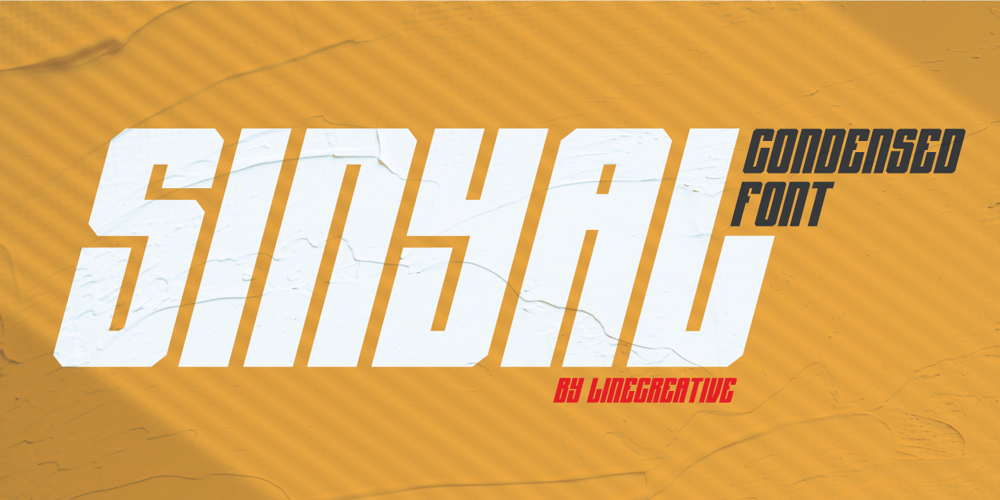
Sinyal Font Family was designed by Ari Juanda and published by Linecreative. Sinyal contains 1 styles and family package options. Sinyal is an oblique style condensed font, and in a very different style from the others. Its weight excels in posters, social media, headlines, magazine titles, clothing, large print formats – and anywhere else you want it to be seen. Inspired by design styles that are popular today, and this is the answer to all the needs of every idea that you will pour in this modern era.Sinyal offers you: Sinyal- A clean Bold italic font including Upper & Lowercase characters(ALL CAPS), Ligatures Character Supports Multi linguage (Latin Western Europe), Numbers and Punctuation